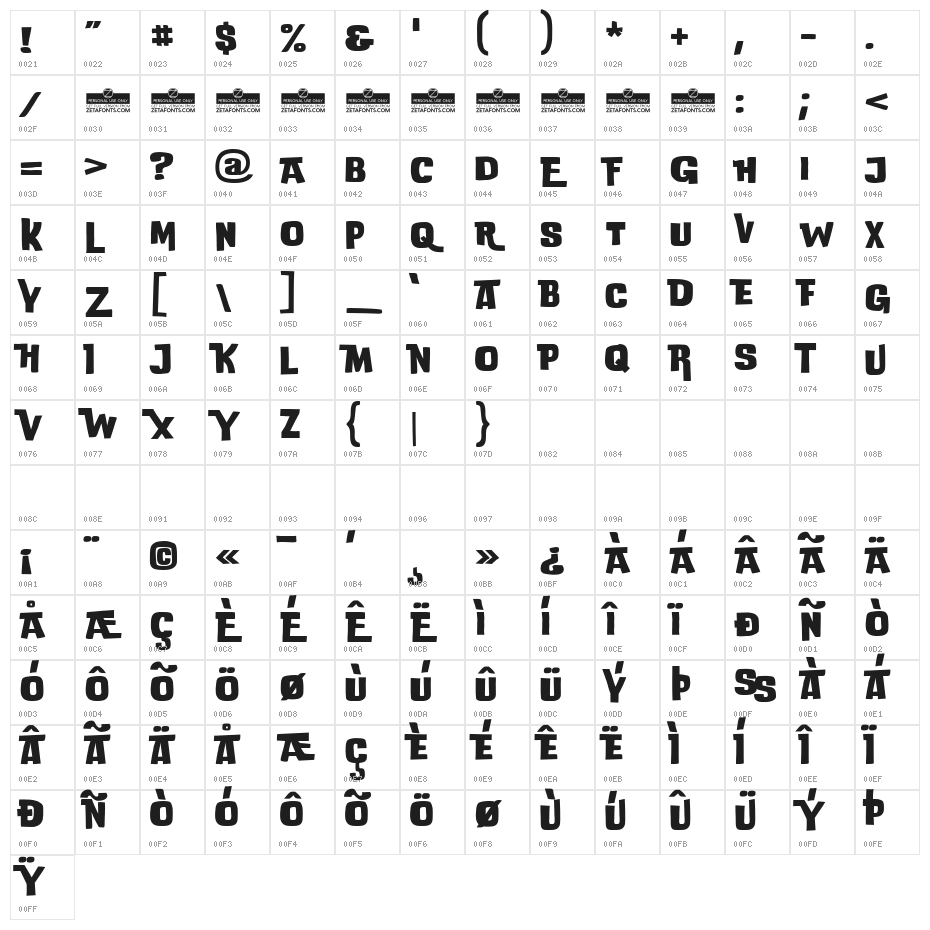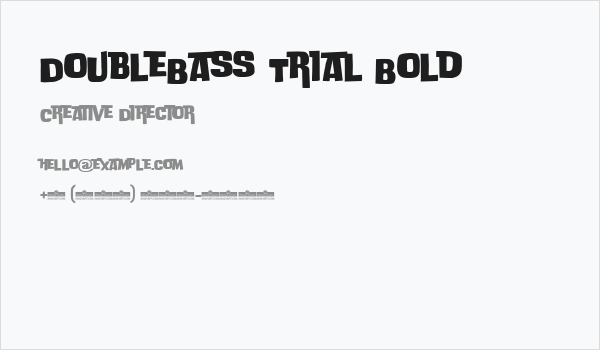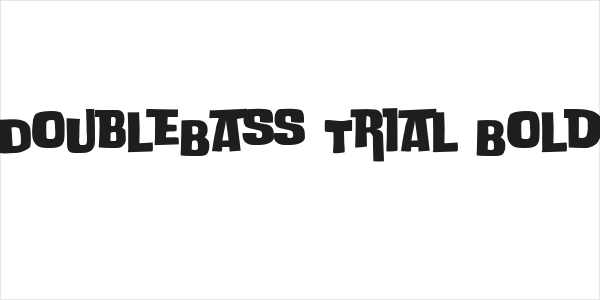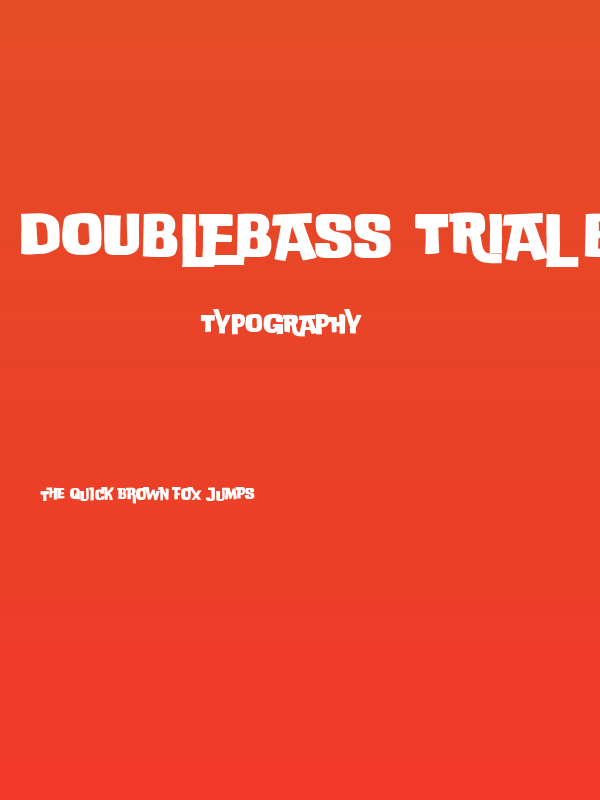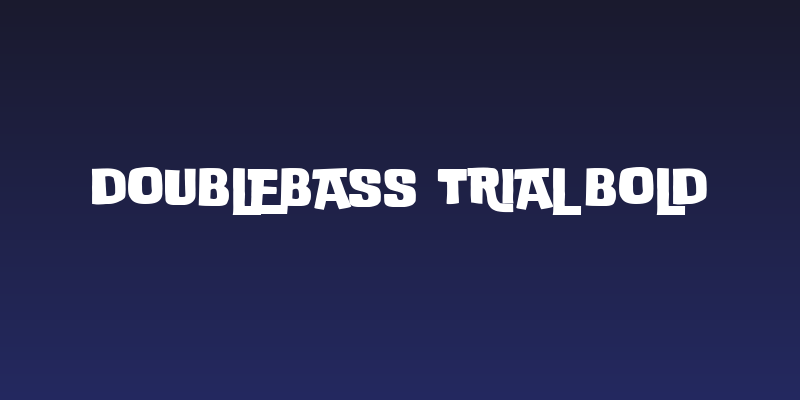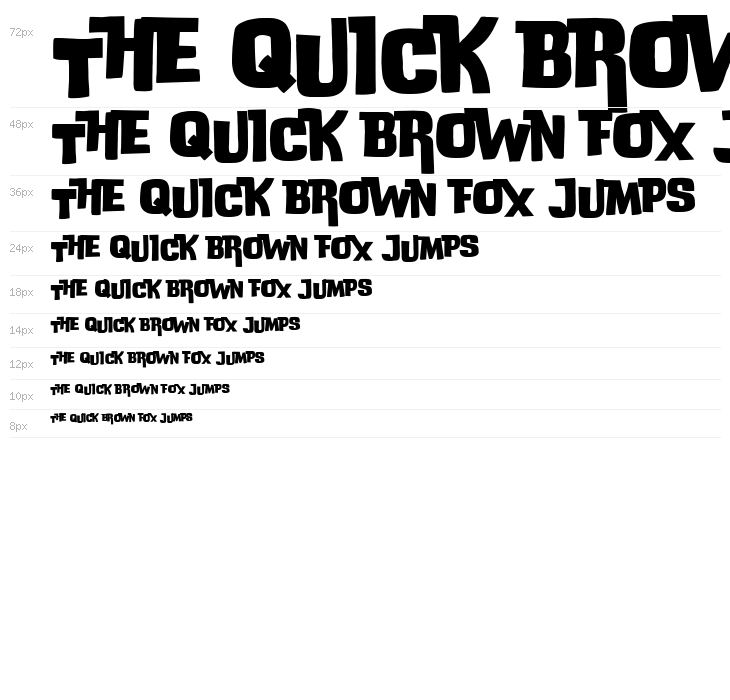
DoubleBass Trial Bold Font
DoubleBass Trial Bold Description
This bold and dynamic font features a strong, impactful presence with its thick, blocky letterforms. The characters are designed with a slight slant, adding a sense of movement and energy. The uppercase letters are particularly striking, with unique angles and curves that give them a distinctive look. The lowercase letters maintain the same boldness, ensuring consistency throughout. The numbers and special characters are equally robust, making them stand out in any design. This font is perfect for projects that require a bold statement.
| Proposed Projects | Ideal for posters, headlines, branding, and any design needing a strong visual impact. |